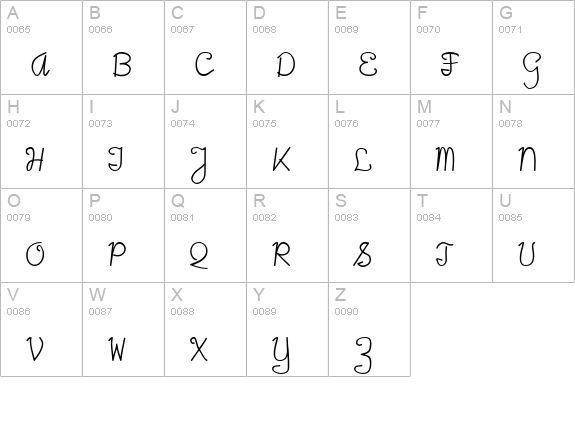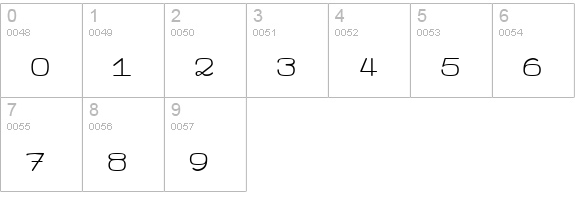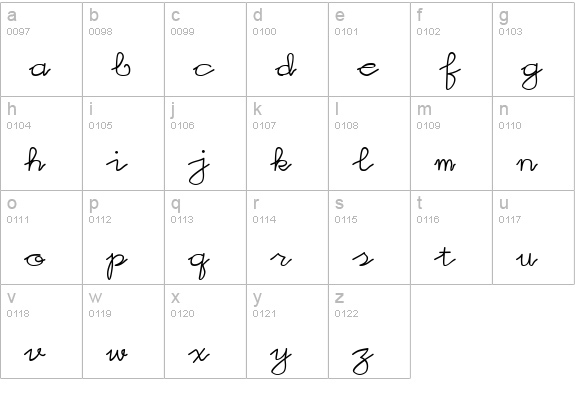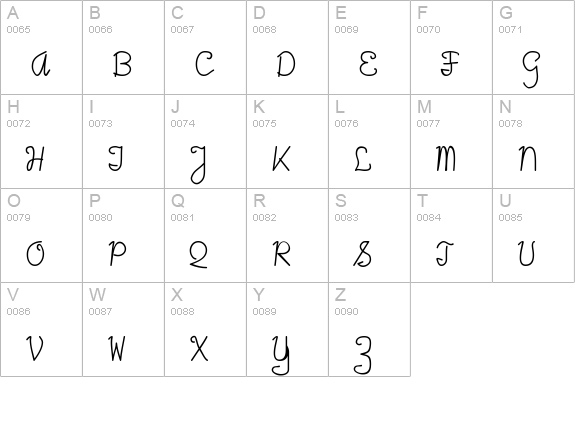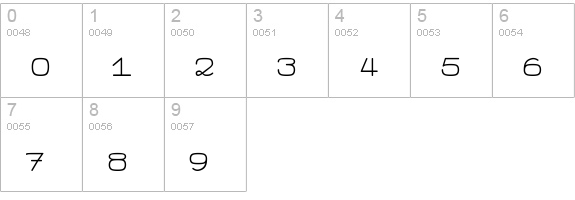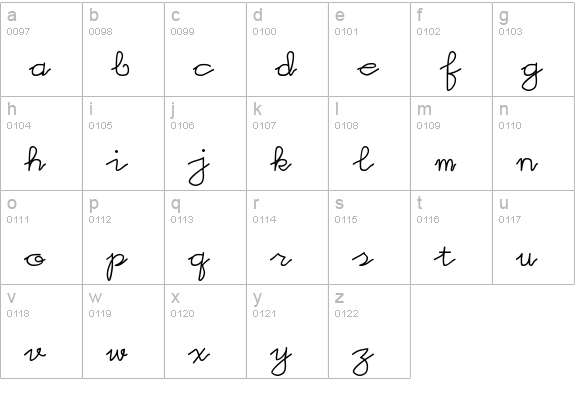
IggoliteMono Font Details
IggoliteMono font is a modern and versatile typeface that is perfect for a wide range of design projects. It features a clean and crisp design with a touch of elegance, making it suitable for both professional and creative applications. With its sleek and sophisticated appearance, IggoliteMono font is ideal for branding, logo design, headlines, and editorial layouts. It offers a unique and distinctive look that will make your designs stand out from the crowd. What makes IggoliteMono font even more appealing is that it is available for free. Yes, you heard it right! This remarkable font can be freely downloaded at FontsMarket.com, allowing you to enhance your design projects without any cost. The wide range of characters available in IggoliteMono font includes uppercase and lowercase letters, numerals, punctuation marks, and a variety of special characters and symbols. This extensive character set ensures that you have all the tools you need to create visually stunning and captivating designs. Not only does IggoliteMono font offer exceptional aesthetics, but it also provides excellent legibility. Each letter is carefully crafted to ensure maximum readability, even at small sizes. This makes it suitable for both print and digital mediums, enabling you to use this font across various platforms. Whether you are a professional designer or someone who loves to experiment with typography, IggoliteMono font is a must-have. Its free availability at FontsMarket.com makes it even more accessible and convenient for everyone. So why wait? Download IggoliteMono font now and unlock the endless possibilities it offers for your design projects. Express your creativity, captivate your audience, and make a lasting impression with this exceptional font.